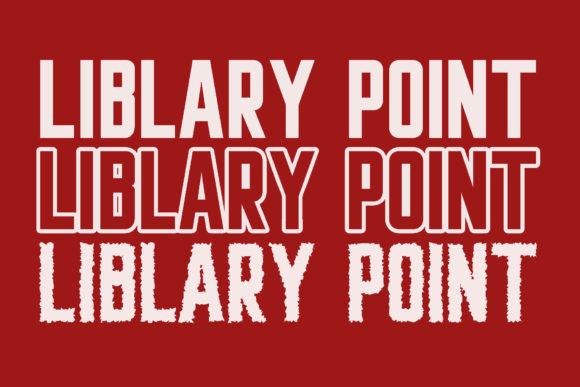
Introducing Liblarypoint, the epitome of sophistication and timeless elegance in the world of typography. This meticulously crafted sans serif font exudes a striking presence, leaving an indelible mark on any design project it graces. Its clean lines and sharp angles create a visual harmony that captivates the beholder, while its versatility ensures effortless adaptability to a myriad of applications.
Unleash your creativity with Liblarypoint, the ultimate font for packaging design. Its bold and confident strokes command attention, making your products stand out amidst a sea of competitors. Whether you're designing sleek and minimalistic labels or eye-catching product displays, Liblarypoint's versatility shines through, elevating your packaging to new heights of sophistication.
With Liblarypoint, crafting captivating film posters becomes a breeze. Its striking presence demands attention, drawing viewers into the captivating world of your cinematic masterpiece. The font's clean lines and sharp angles lend a touch of drama and intrigue, enhancing the overall impact of your poster design.
Transform your headlines into works of art with Liblarypoint. Its bold and commanding presence ensures that your messages are impossible to ignore. Grab the attention of your audience and leave a lasting impression with Liblarypoint's distinctive style.
Design logos that exude professionalism and leave a lasting impression with Liblarypoint. Its clean and elegant lines convey a sense of trust and credibility, making it the perfect choice for businesses looking to establish a strong brand identity. Whether you're creating logos for corporate giants or small businesses, Liblarypoint delivers the perfect blend of style and functionality.
Indulge in the boundless possibilities of block lettering with Librarypoint. Its bold and impactful strokes make your words pop off the page, creating a visually stunning display. Craft signage that commands attention, design eye-catching posters that leave a lasting impression, or create social media graphics that captivate your audience - the creative possibilities are endless.
With Liblarypoint at your disposal, the world of typography becomes your playground. Its versatility and adaptability make it the perfect font for a multitude of projects, from branding and marketing materials to website design and social media graphics. Unleash your imagination and let Liblarypoint take your designs to new heights of brilliance.